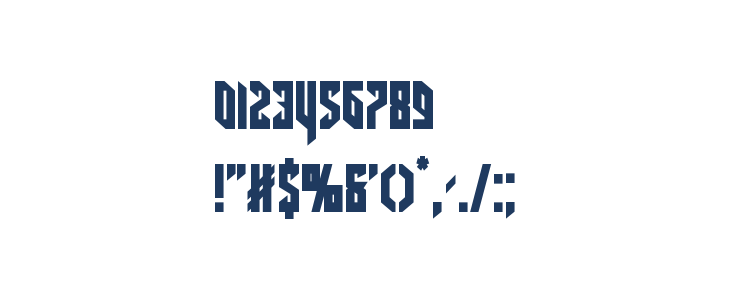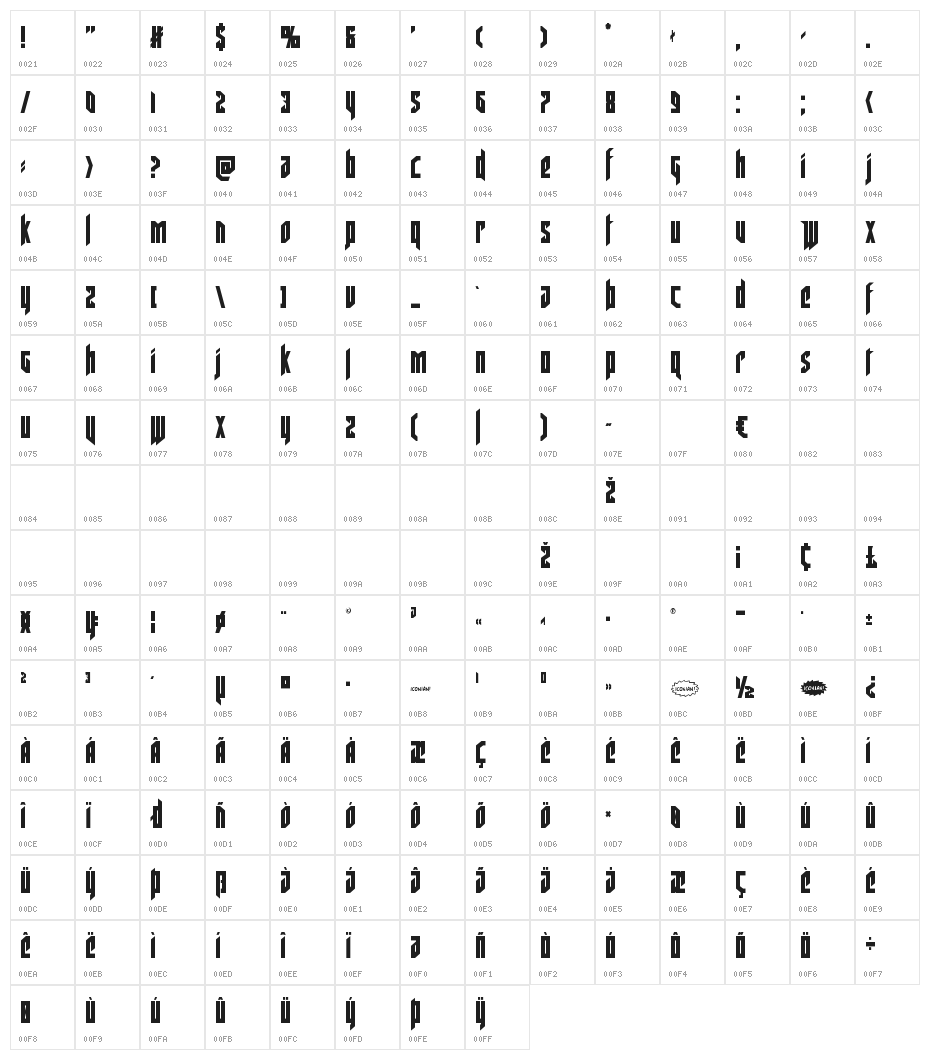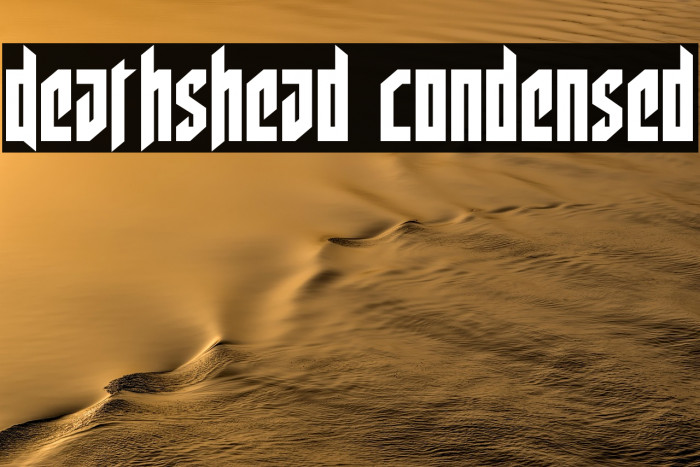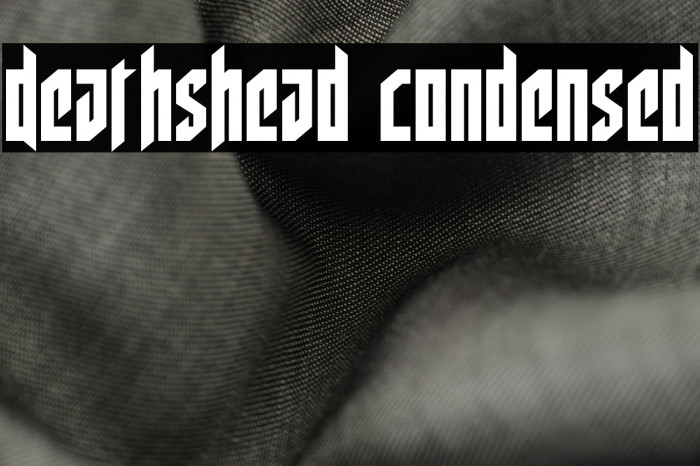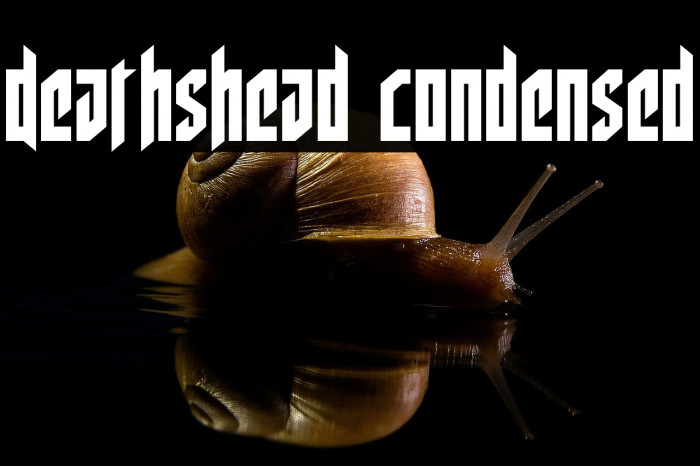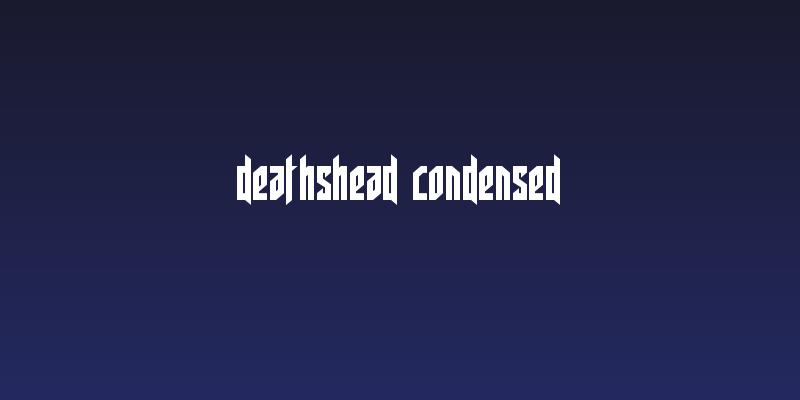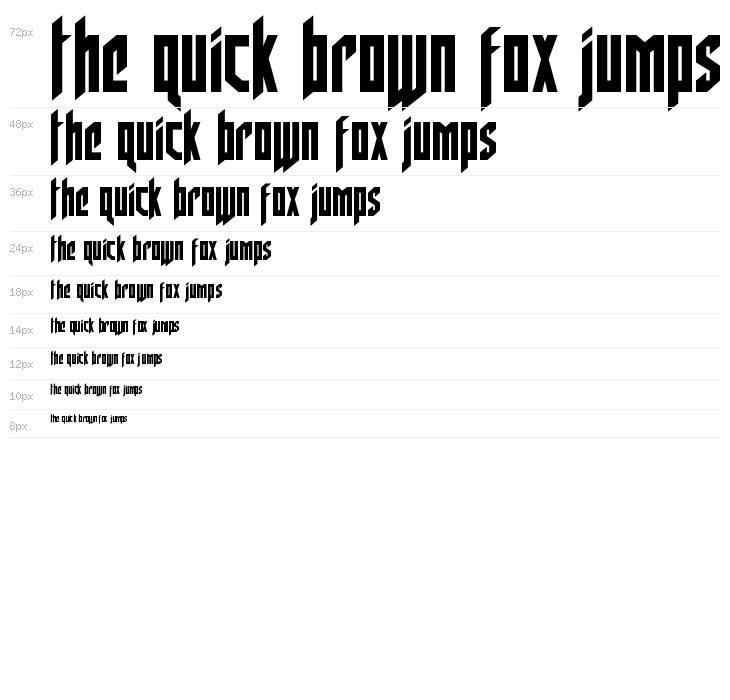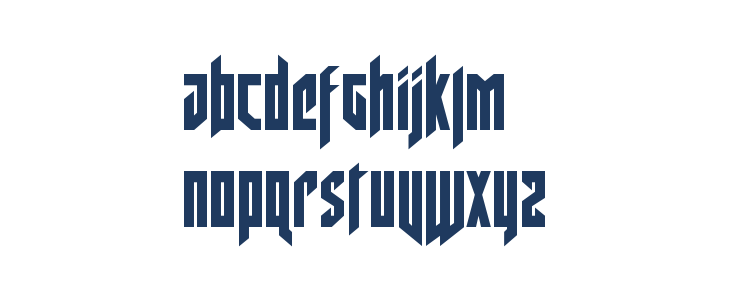
Deathshead Condensed Font
Deathshead Condensed Description
This font features a bold, angular design with sharp edges and a condensed structure. The characters are highly stylized, with a geometric and blocky appearance that gives them a modern and edgy feel. The uppercase and lowercase letters maintain a consistent height, contributing to a uniform look. The numbers and special characters follow the same design principles, ensuring a cohesive appearance across all glyphs. The font's unique style makes it stand out, with a strong presence that commands attention.